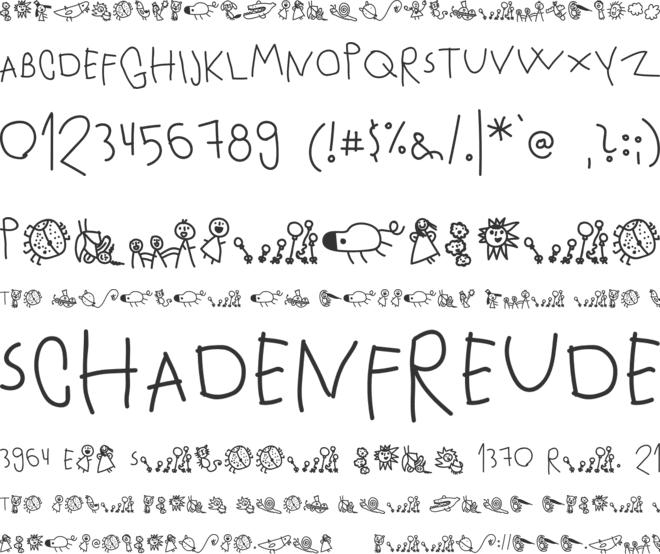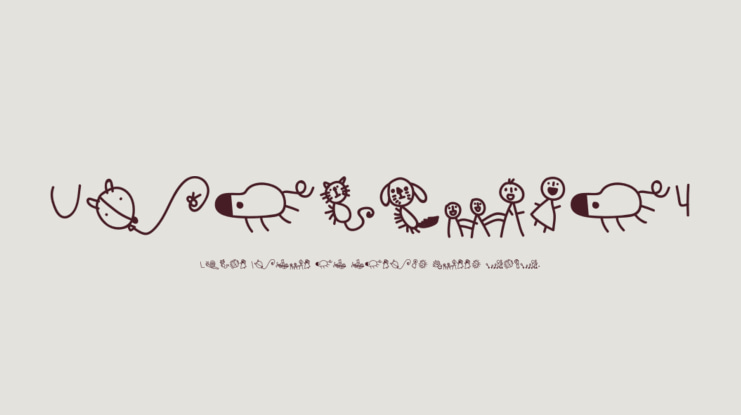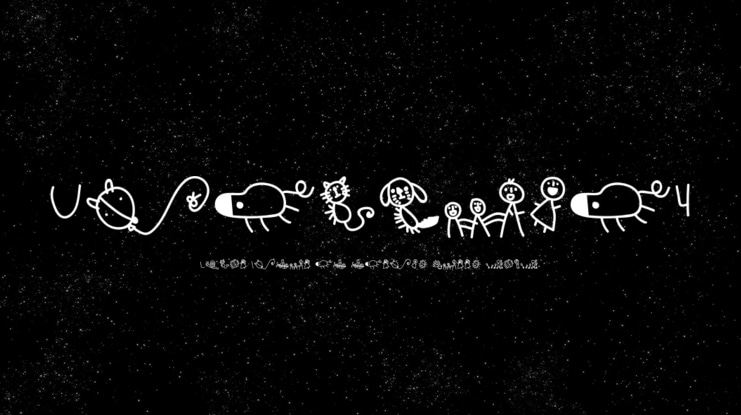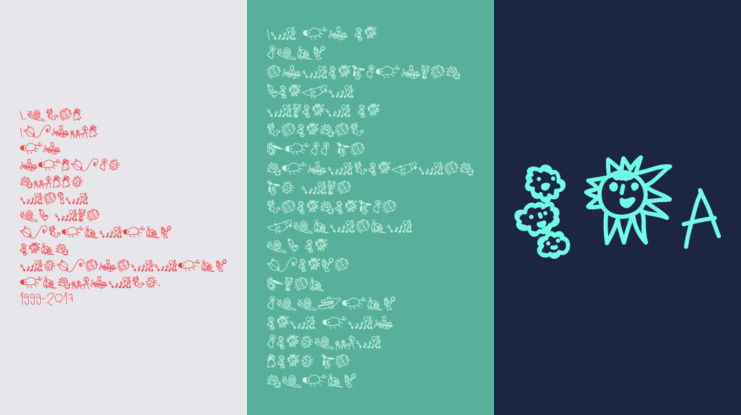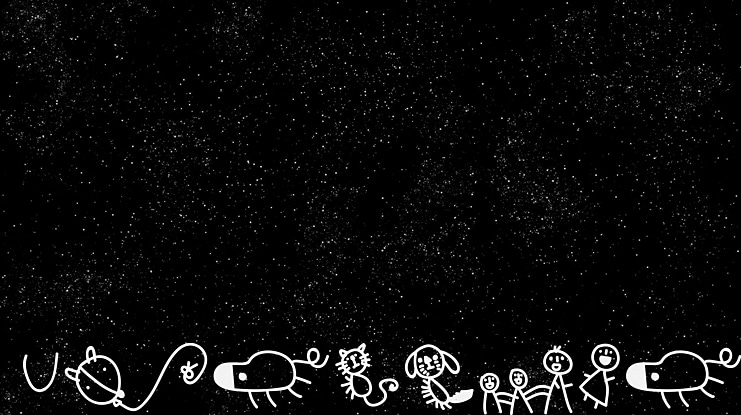
Upirjuli4 Font
Vaclav Krejci
UPIRJULI4 - 100% free kids font with dingbats
Font created based on the alphabet drawings from my 4-years old daughter. Uppercase characters are actual letters, lowercase characters are various drawings. Few symbols are added as well to make it somehow usable. Accented letters for the Czech language included.